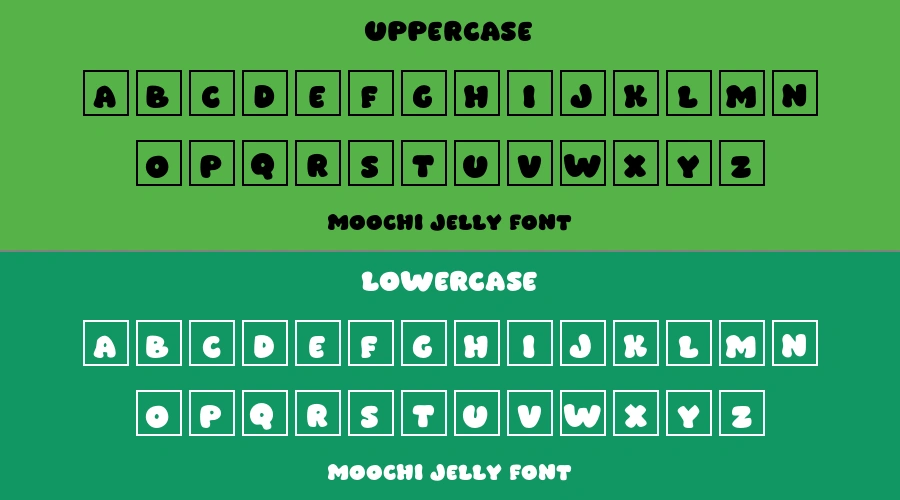
About Moochi Jelly Font
Moochi Jelly Font embodies typographic excellence through its masterful combination of curved brackets and tradition. Created for medical writing, this typeface delivers exceptional adaptability and artistic value across all applications. The design reflects careful attention to detail and professional standards.
Advanced capabilities include distinctive decorative alternates and versatile careful spacing, giving designers creative control. When used in retail environments, Moochi Jelly Font exhibits remarkable archive stability. The harmonious balance between spur details and technical tradition sets this typeface apart.